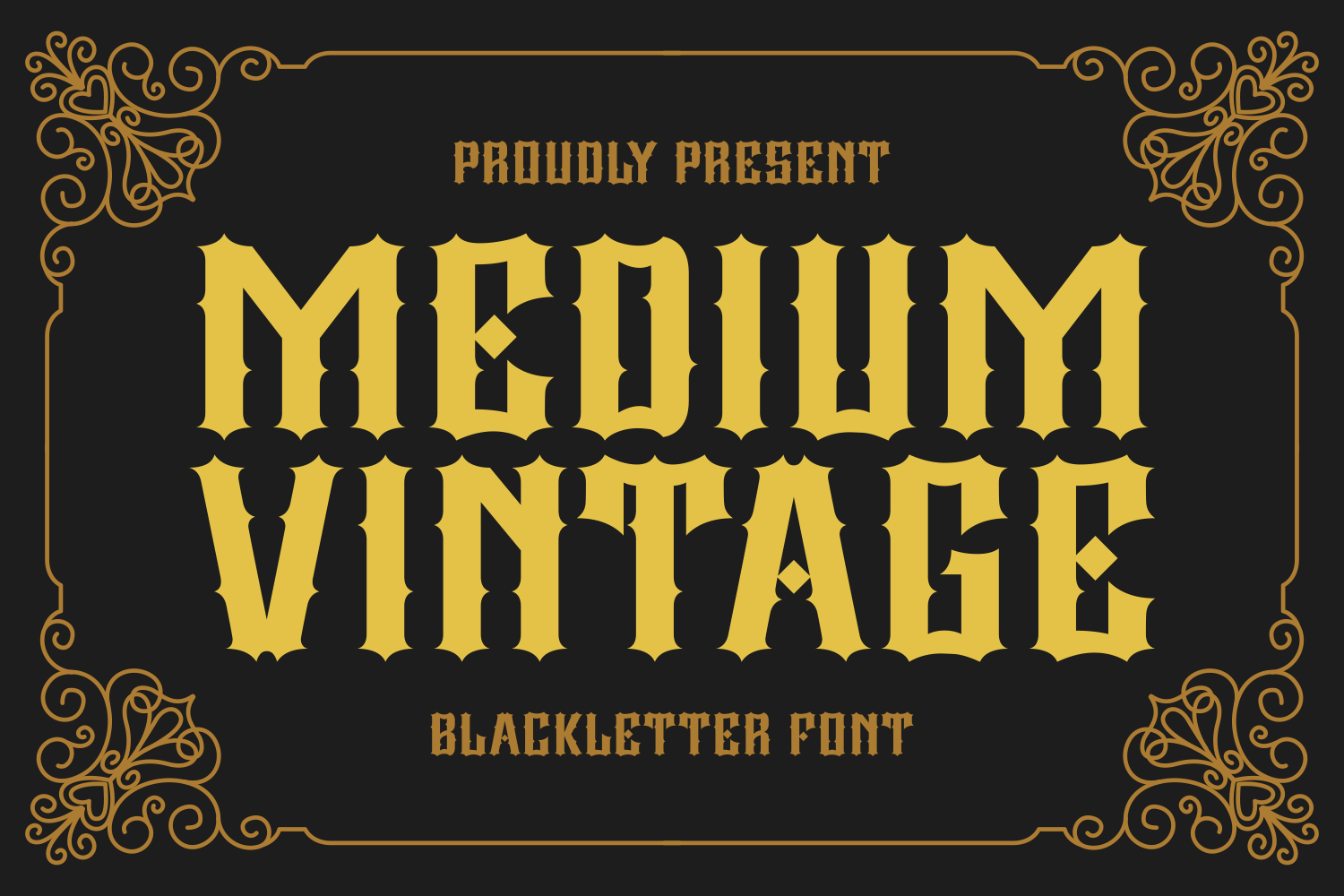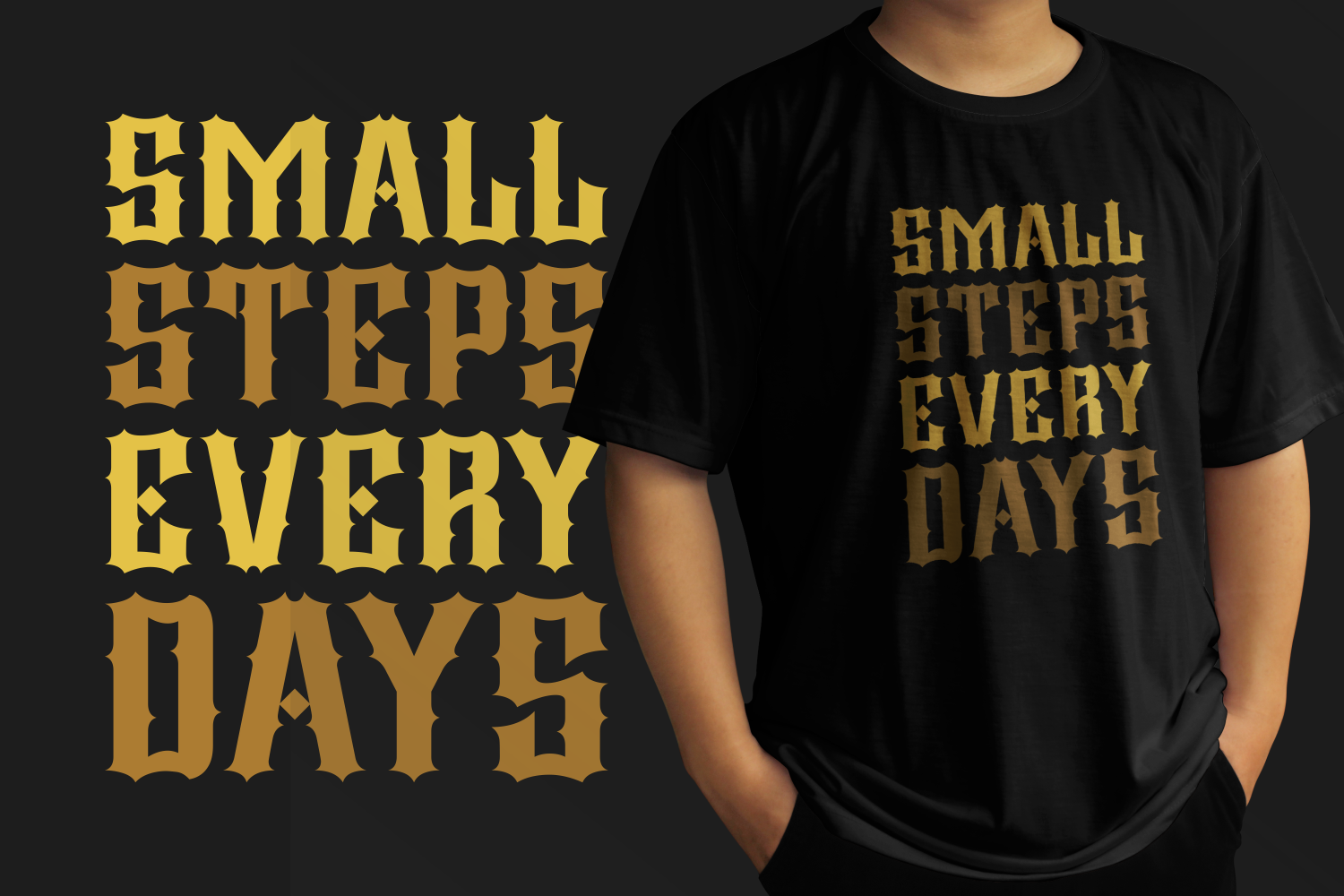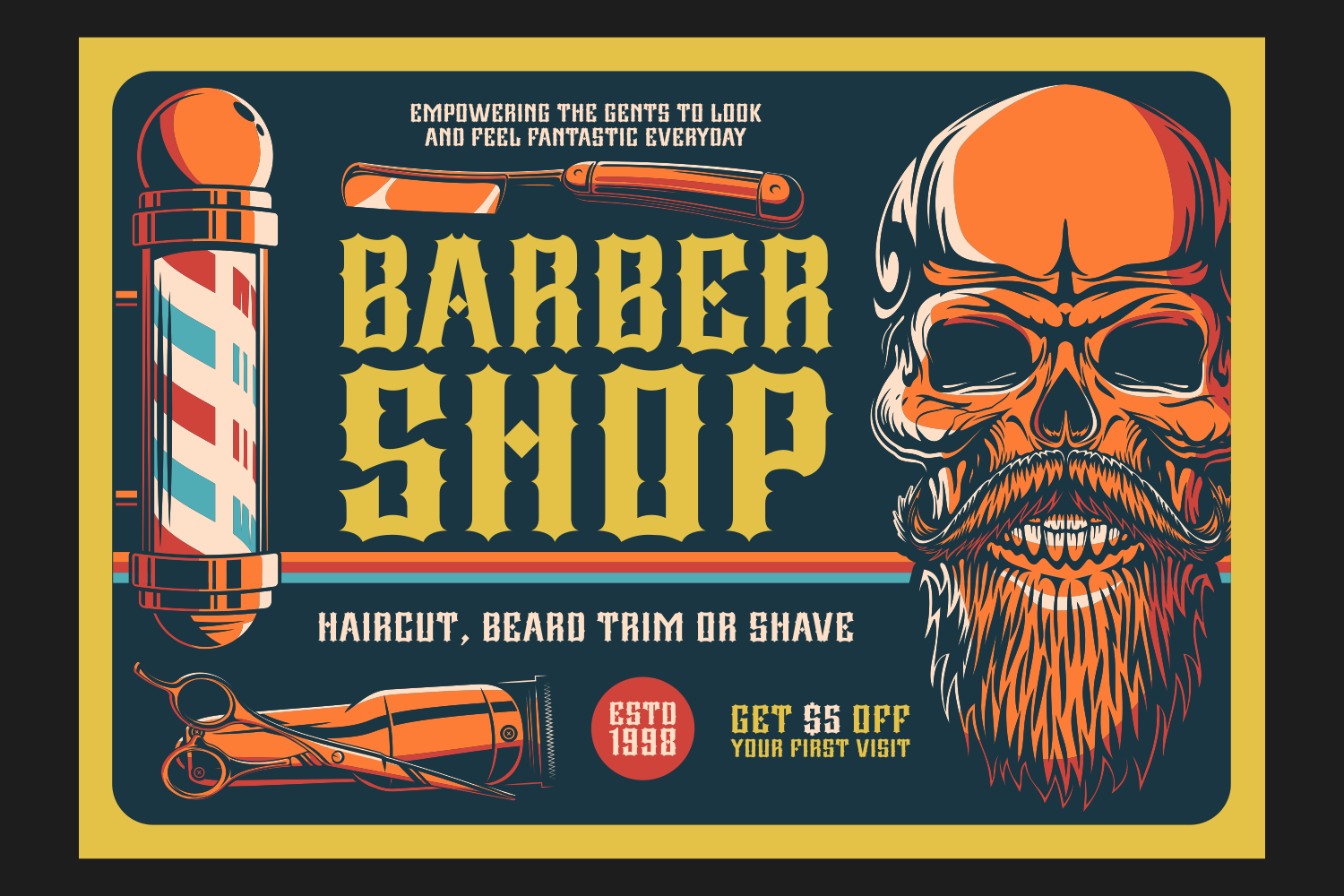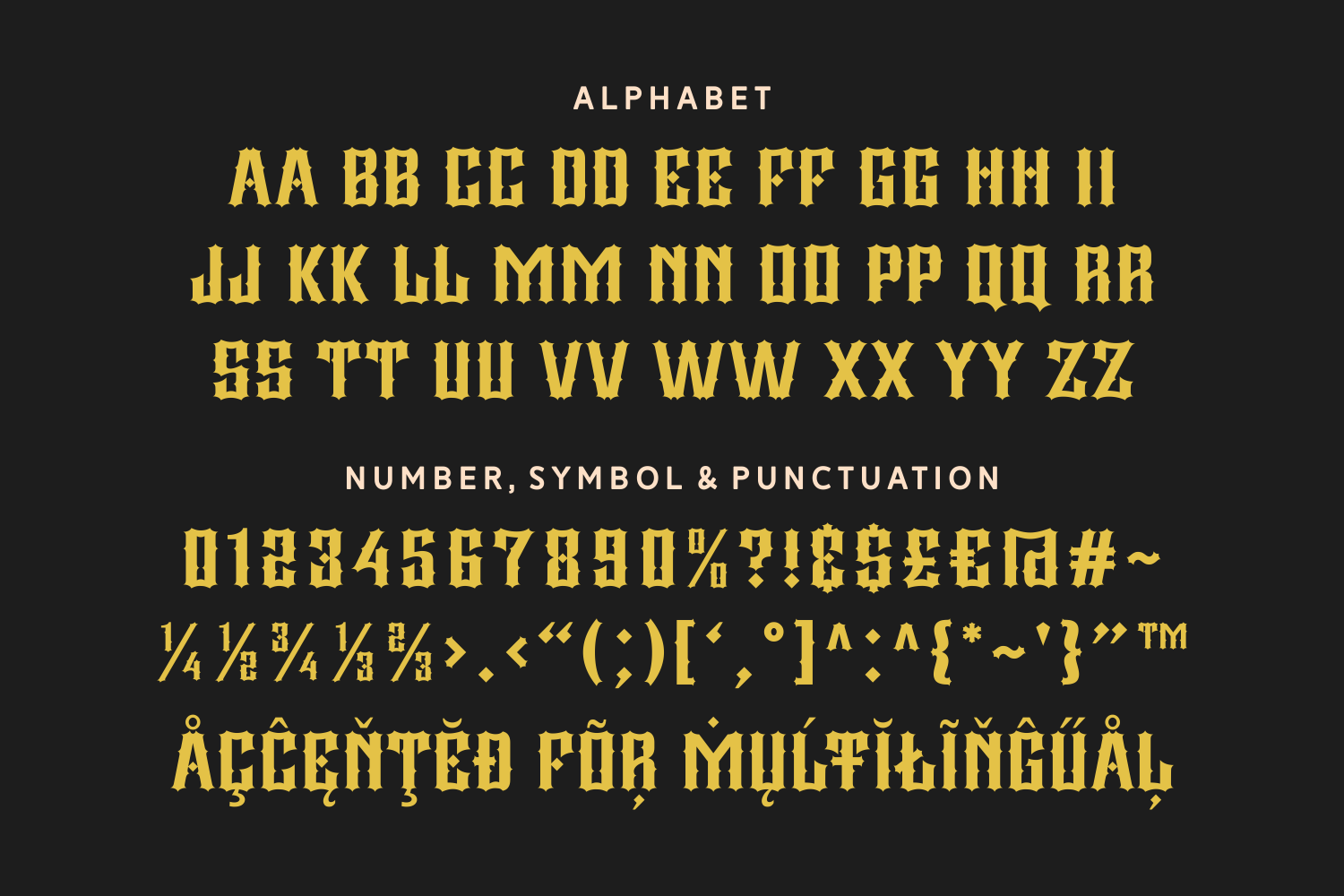
Medium Vintage
Medium Vintage is a decorative blackletter font that channels bold nostalgia and medieval flair. Its high-contrast strokes and ornamental details make it a standout choice for vintage labels, classic posters, apparel branding, and any design that celebrates timeless gothic aesthetics.